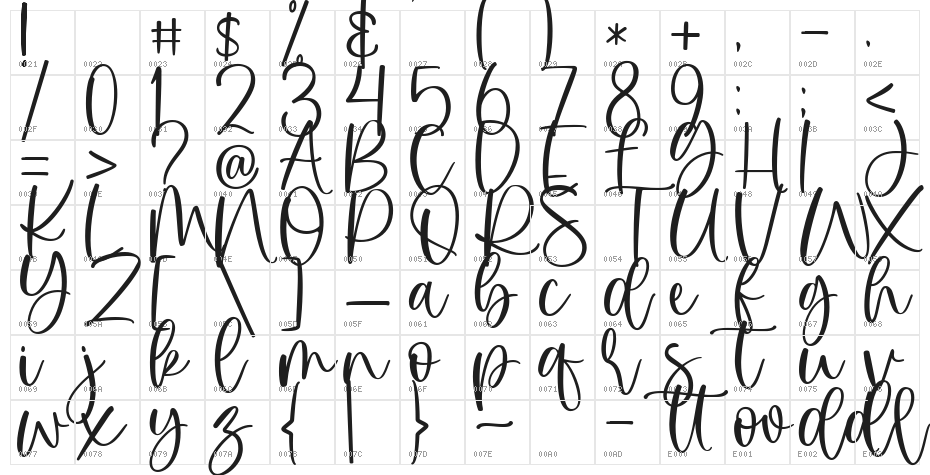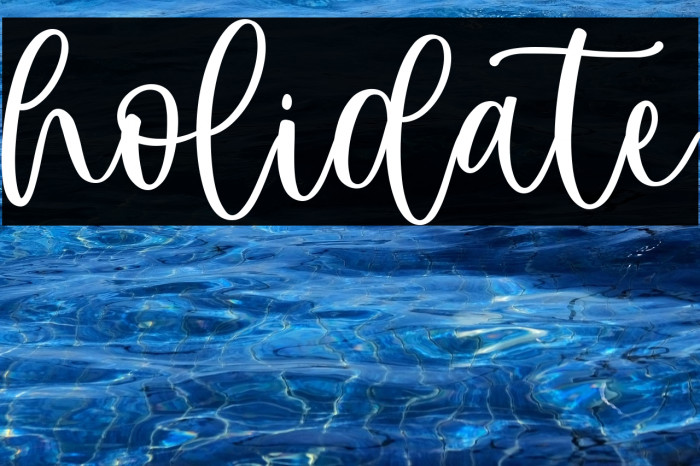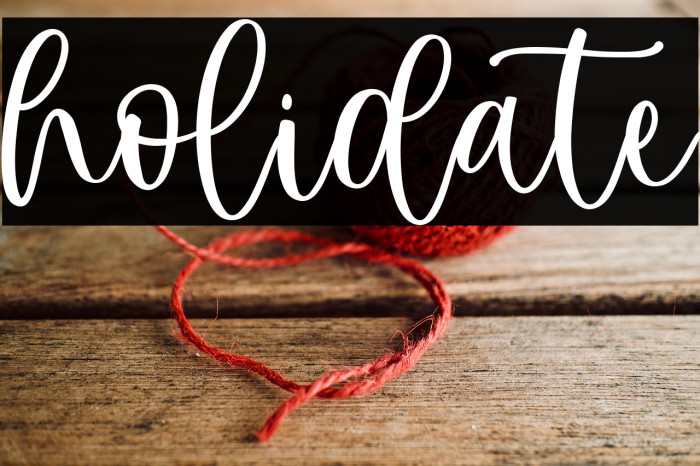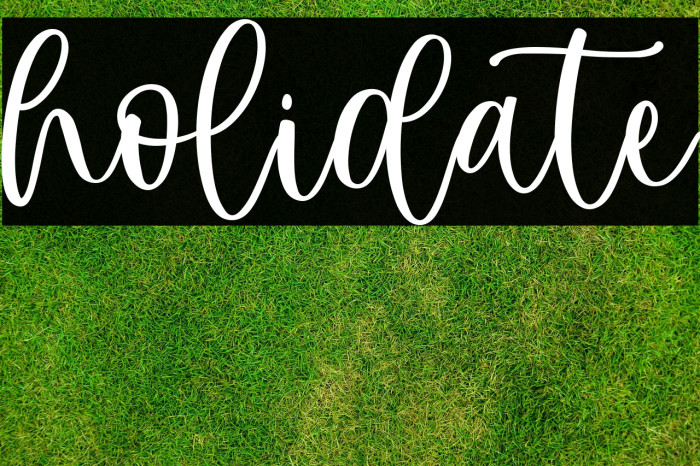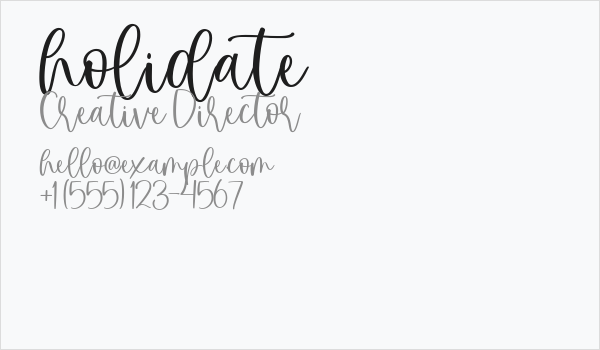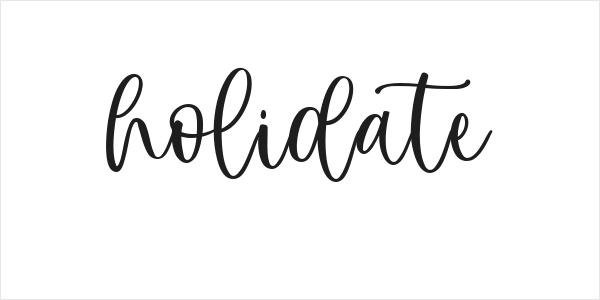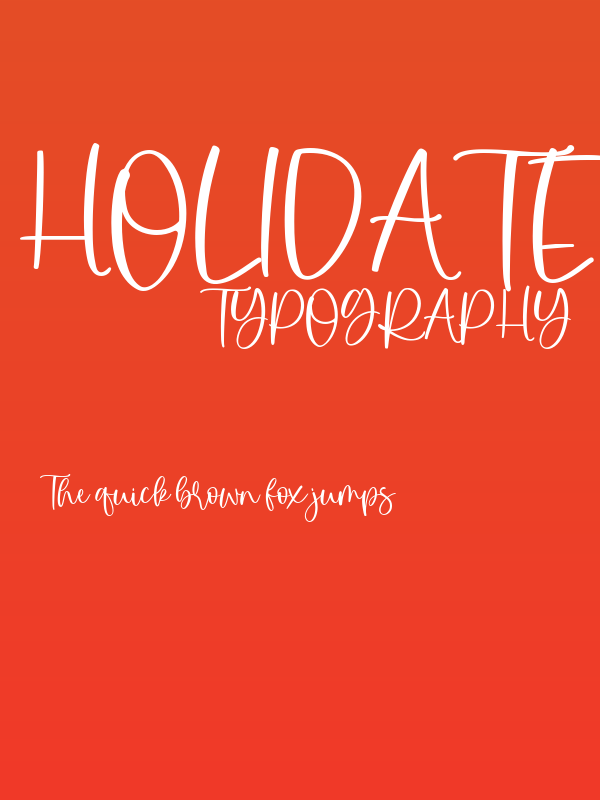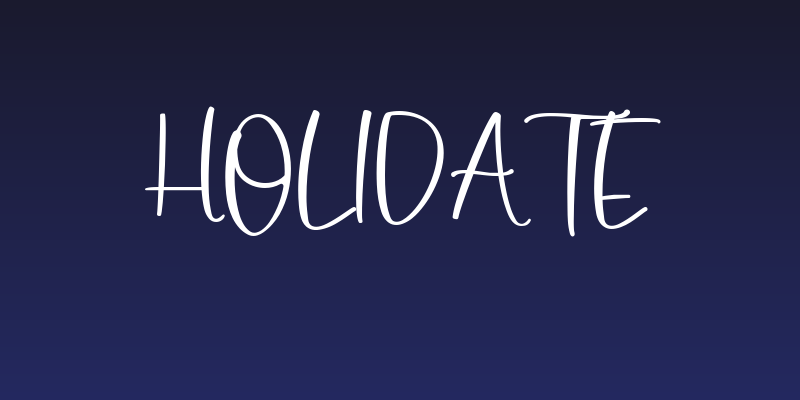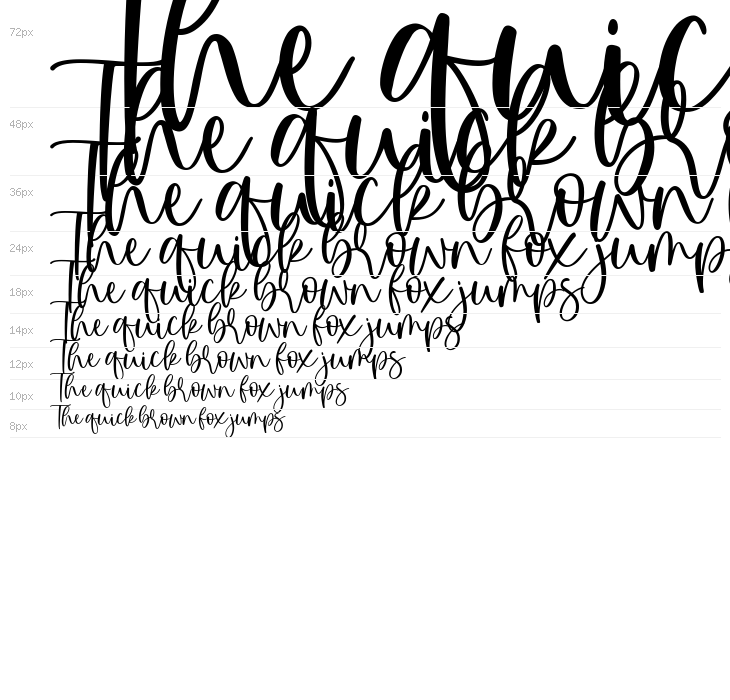
holidate Font
| Gesamtstil | Casual, Playful |
| Anwendungsfall | Logos, Invitations, Greeting Cards |
| Vorgeschlagene Projekte | Ideal for greeting cards, invitations, personal branding, and creative projects that require a friendly and informal touch. |